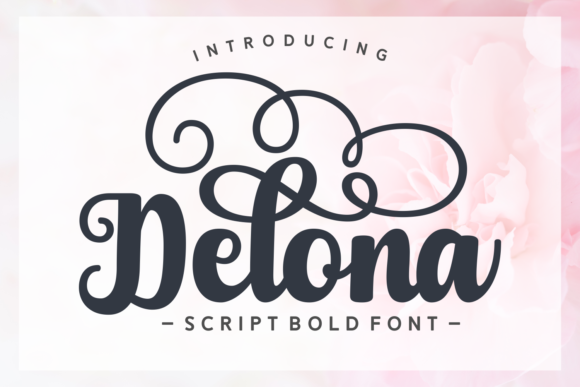
Introducing Delona Font: The Epitome of Elegance and Sophistication
In the realm of typography, few fonts manage to convey the essence of luxury and refinement as effortlessly as Delona Font. This chic, refined script font has been meticulously crafted to emanate sophistication and elegance, making it the perfect addition to any design project that demands a touch of class. Whether you’re a seasoned designer or a crafty DIY enthusiast, Delona Font is sure to captivate your audience with its stylish alternates and ligatures.
The Design Philosophy Behind Delona Font
Delona Font is more than just a typeface; it’s an experience. Its design is rooted in the pursuit of perfection, offering a harmonious blend of fluid strokes and intricate details. Each glyph has been carefully considered to ensure that the font exudes a sense of luxury and poise, making it an ideal choice for projects that require a high level of sophistication.
Key Features of Delona Font
- PUA Encoding: Delona Font boasts PUA (Private Use Area) encoding, which means that accessing the extensive range of glyphs and swashes is incredibly straightforward. This feature allows designers to unlock the full creative potential of the font with ease.
- Stylish Alternates and Ligatures: One of the standout features of Delona Font is its collection of stylish alternates and ligatures. These elements add a layer of depth and uniqueness to any text, enabling designers to create bespoke typography that stands out from the crowd.
- Elegance and Versatility: Delona Font is not just elegant; it’s also remarkably versatile. It can be used across a wide range of projects, from luxury branding and high-end packaging to elegant stationery and refined digital content.
Applications of Delona Font
Delona Font is a masterclass in typographic design, offering a perfect blend of elegance, sophistication, and creative versatility. Whether you’re working on a luxury brand project, crafting bespoke stationery, or simply looking to elevate your digital content, Delona Font is an exceptional choice. Its stylish alternates, ligatures, and PUA encoding make it not only a beautiful font but also a practical tool for designers and crafters seeking to make a lasting impression.